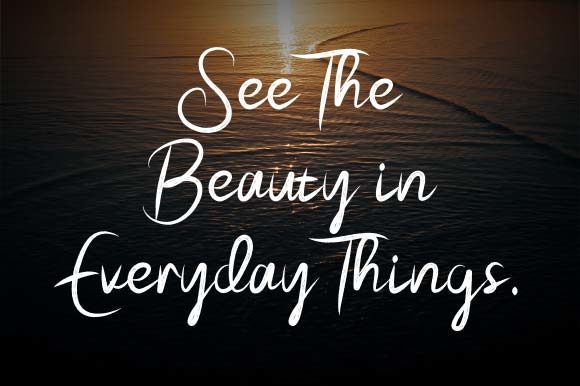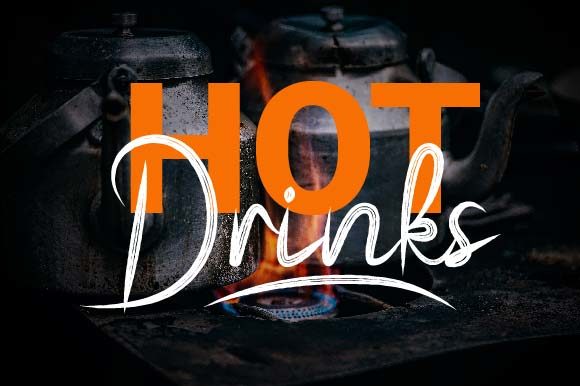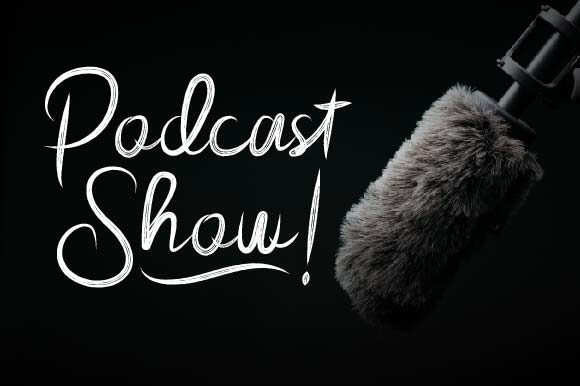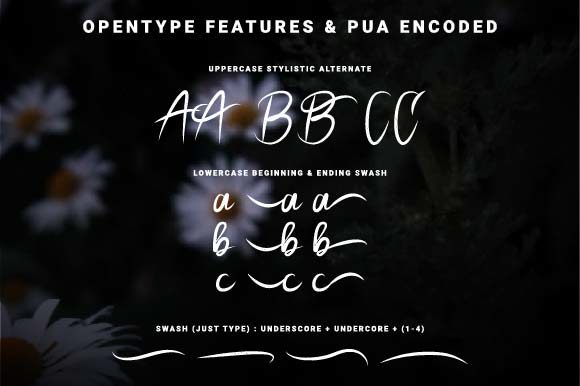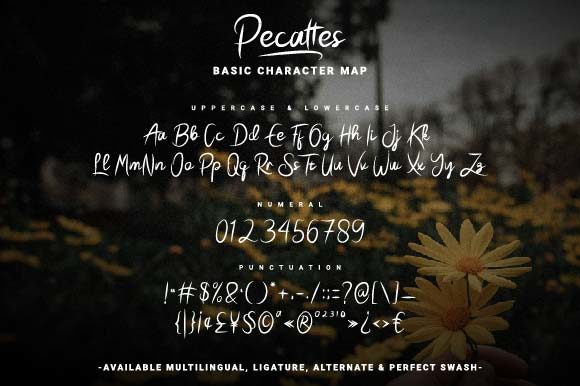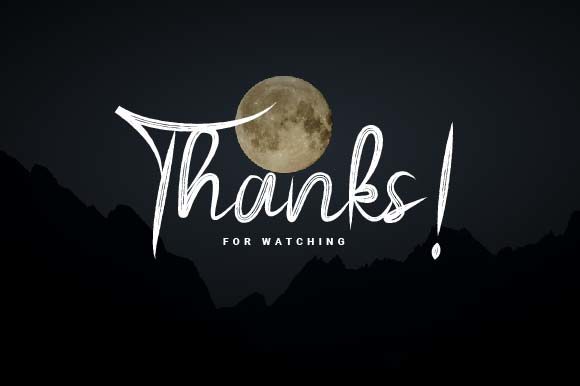
Pecattes Font
About Pecattes Font
Pecattes is a neat, bold and brushed handwritten font. It has a cool and distinct urban style and it will most certainly elevate each of your designs. This font is PUA encoded which means you can access all of the glyphs and swashes with ease!